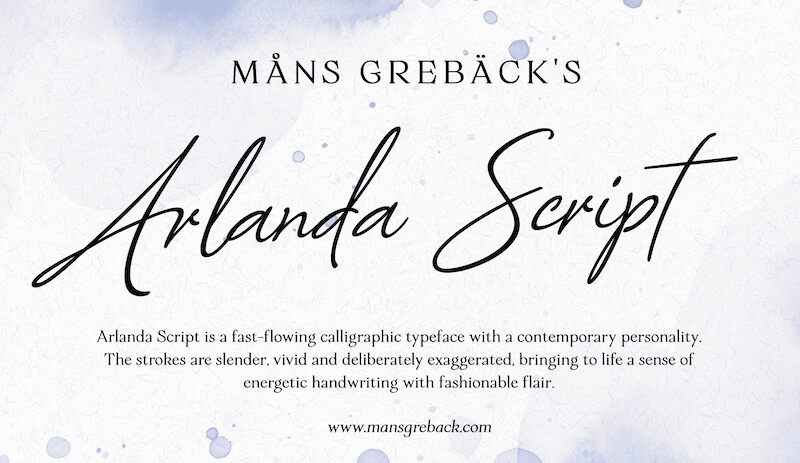
Arlanda Script font by Mans Greback showcases expressive gestures with an elegant, flowing design. Created in a handwritten style, this typeface features modern script aspects that are subtly stylish and full of character. Delightfully energetic and relaxed, with its contemporary personality and contemporary charm it’s guaranteed to draw the attention of every observer.
This free handwritten font is ideal for cards, posters, book covers, branding projects, advertising copies & invitations. Use it in social media posts related to any industry or beautify magazine covers & headings for both print or digital format.
You can use an underscore (_) to create a swash underline.
For example: Rosen_lover
Using multiple underscores will produce different swashes.
For example: Wonder____woman